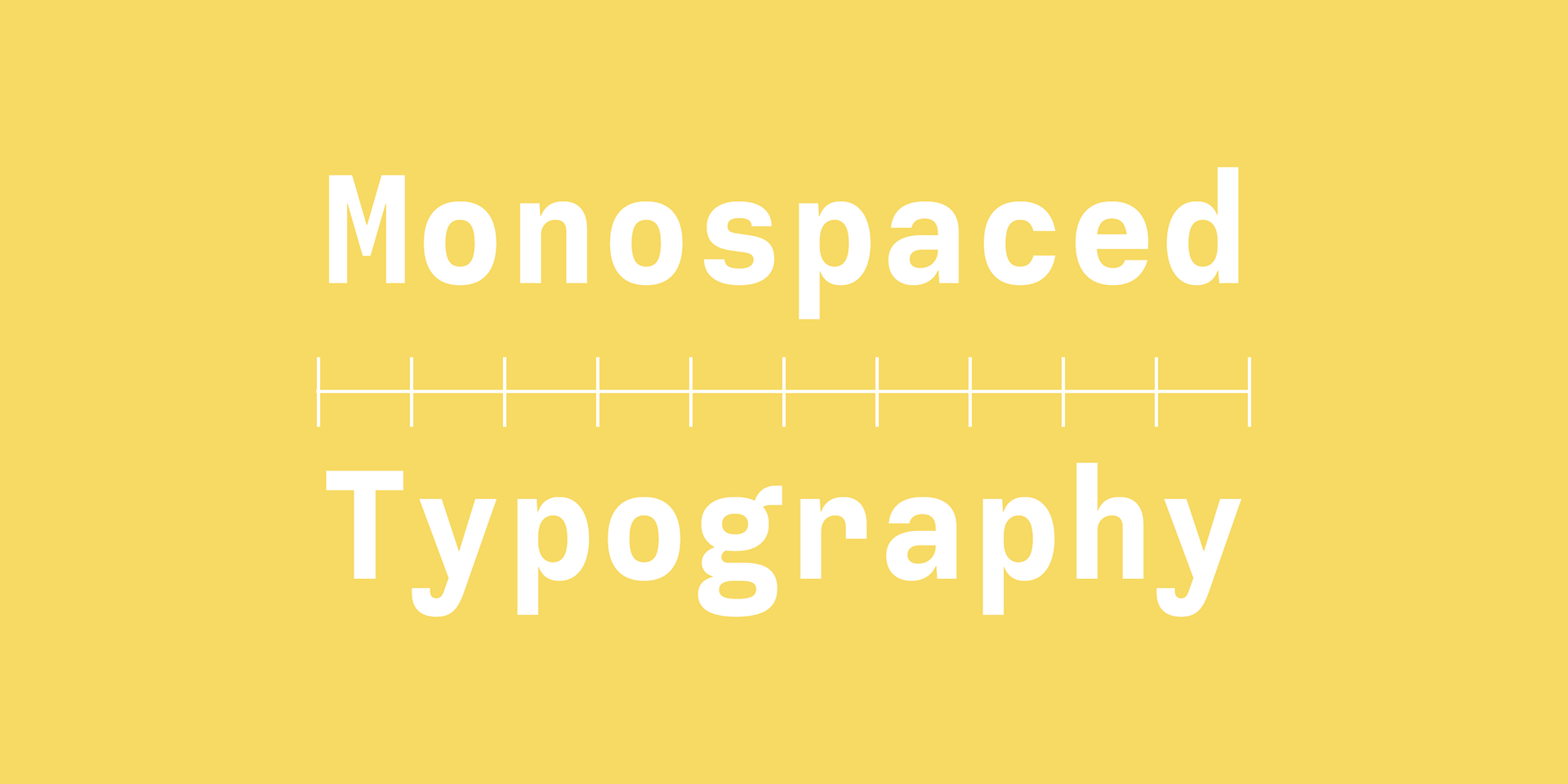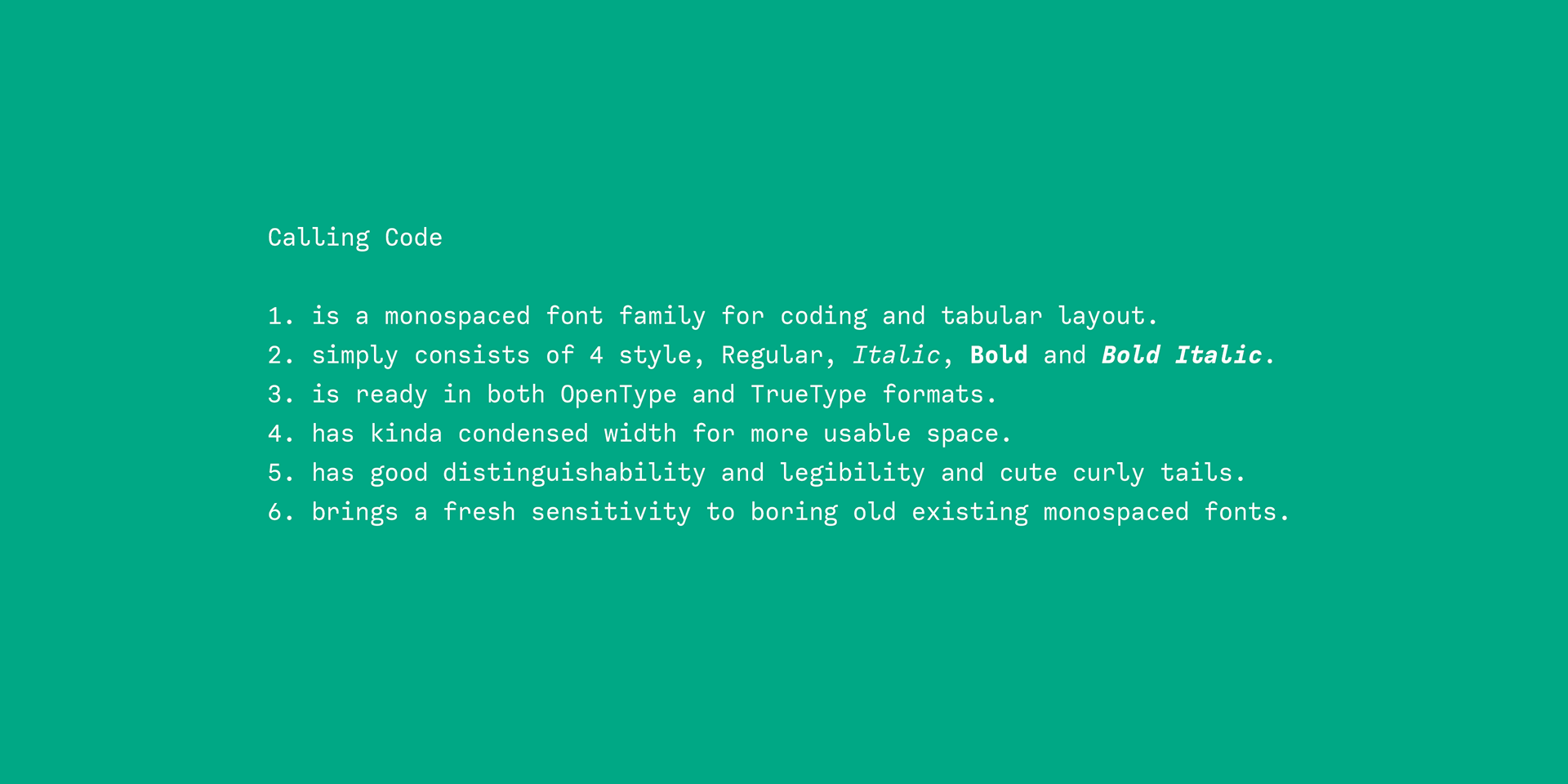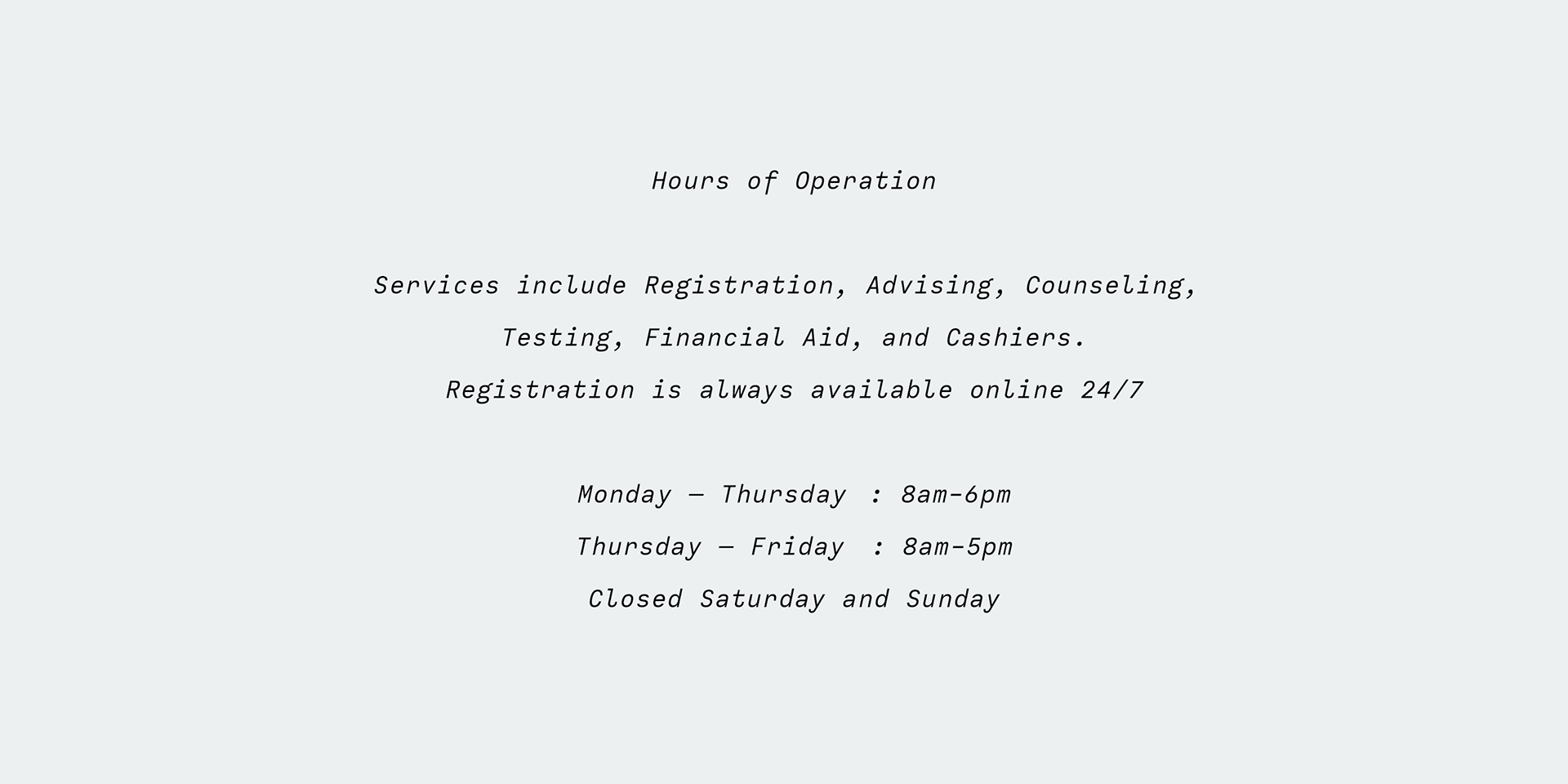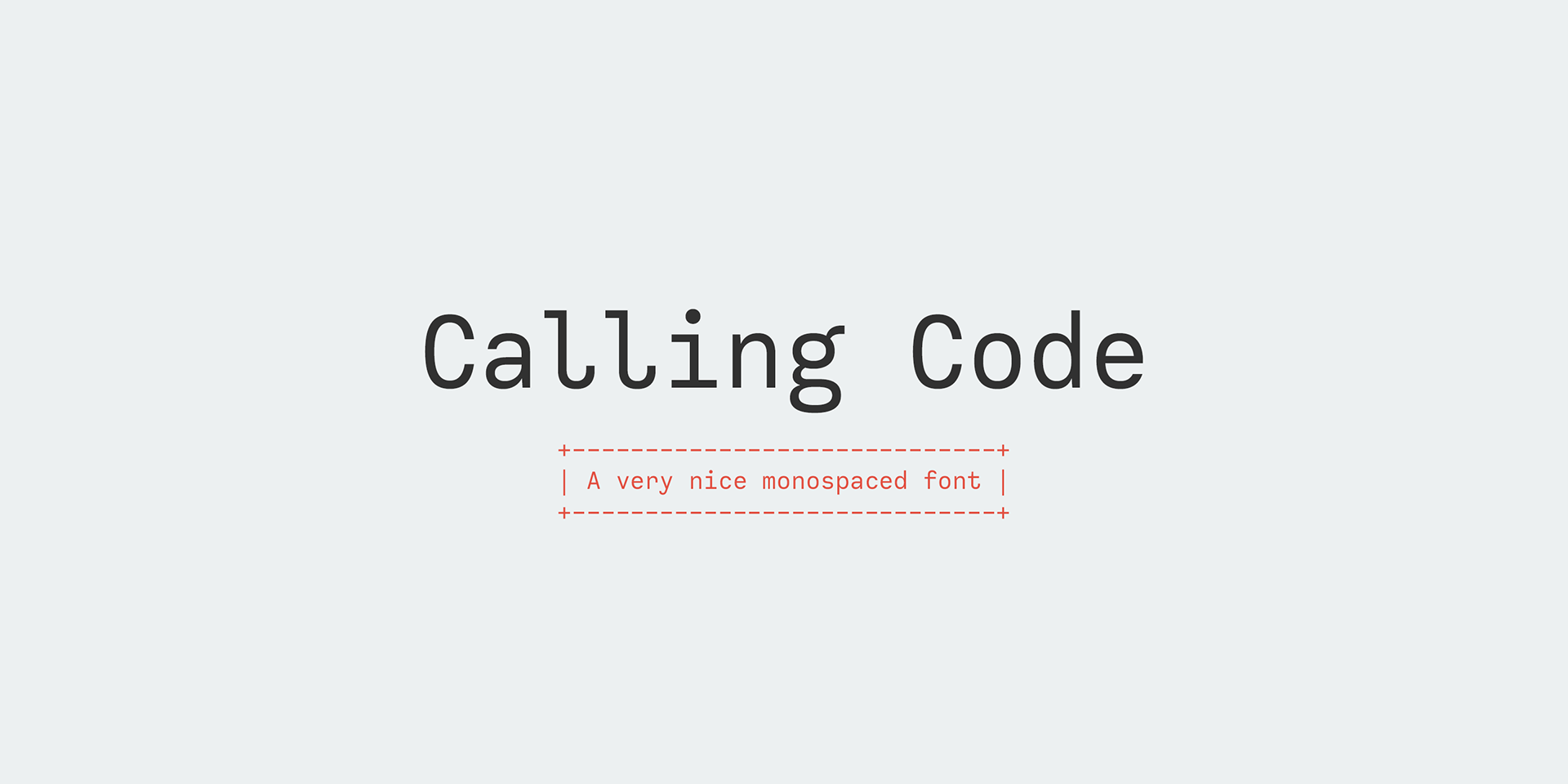
Calling Code
Calling Code is a versatile and stylish monospaced font designed for coding and tabular layouts. It brings a refreshing touch to the traditionally rigid world of monospaced typefaces.
1. Designed specifically for coding and data display.
2. Includes 4 styles: Regular, Italic, Bold, and Bold Italic.
4. Features a slightly condensed width to maximize screen space.
5. Offers excellent legibility and character distinction, with playful curly tails for added charm.
6. Injects fresh personality into the often dull world of monospaced fonts.